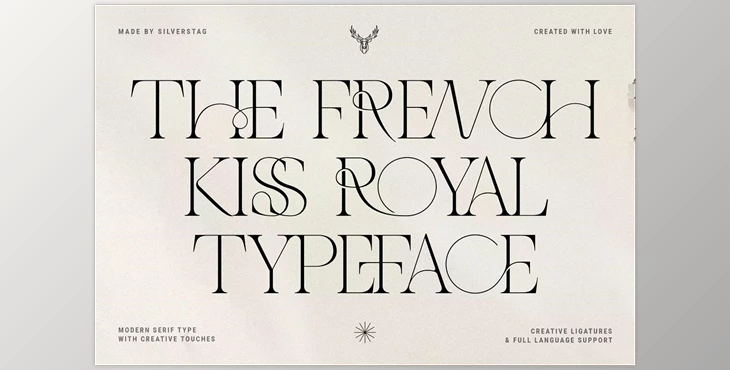
Just right in time for Valentine's Day, I present to my new ligature-serif typeface, THE FRENCH KISS. Inspired by the flow, art love, and, of course, France The new ligature font gives you classical serif characteristics with modern connections and imaginative solutions for the ligatures!
Each letter and ligature is hand-crafted and crafted to match all other letters in the same way without any need. Every letter is distinctive with an edgy, modern style that gives you a style distinct from others.
The typeface French Kiss Royal is an excellent option for those creating a brand new poster, Valentine's Day card, website, or even branding. It was created to be utilized in bold ways to show your uniqueness! Take a look at the images I've prepared to show you can create with them. enjoy making!
The FRENCH KISS ROYAL TYPEFACE comprises: